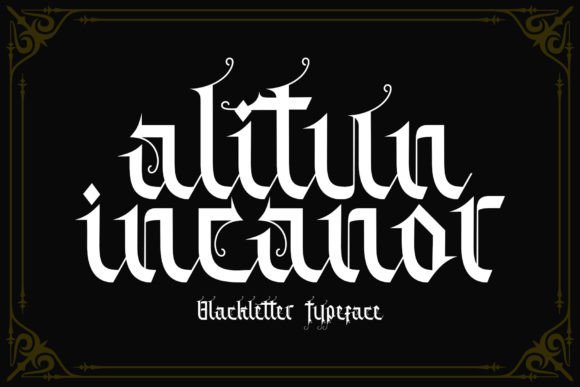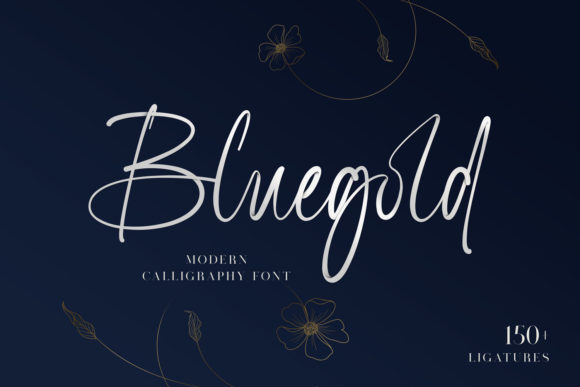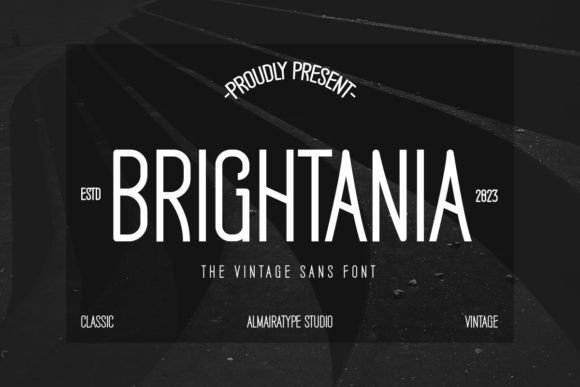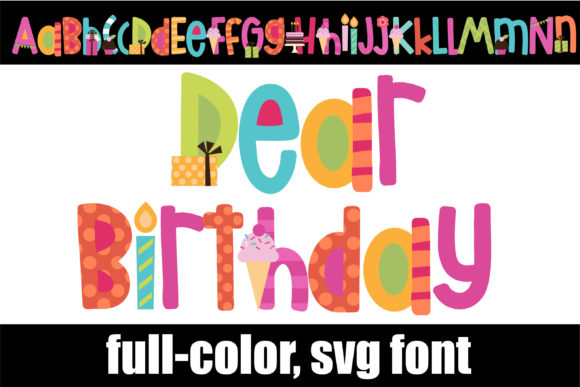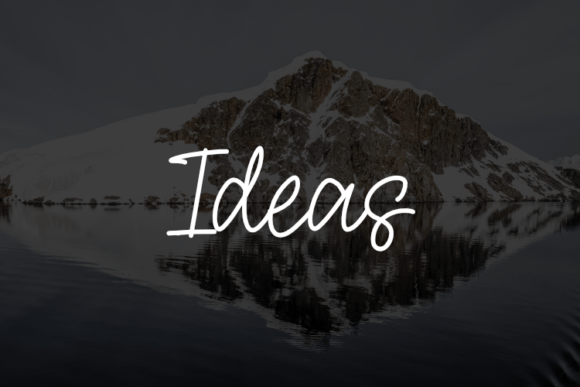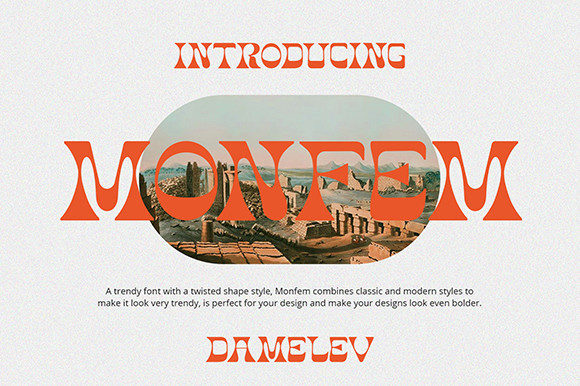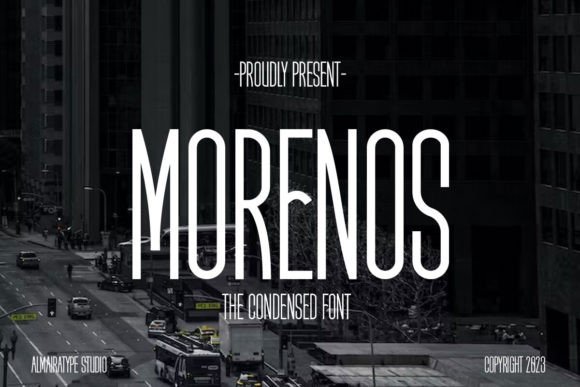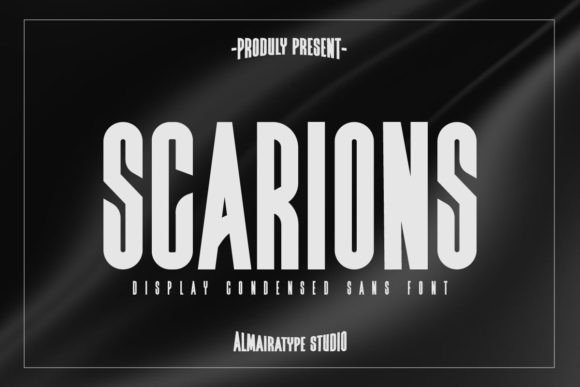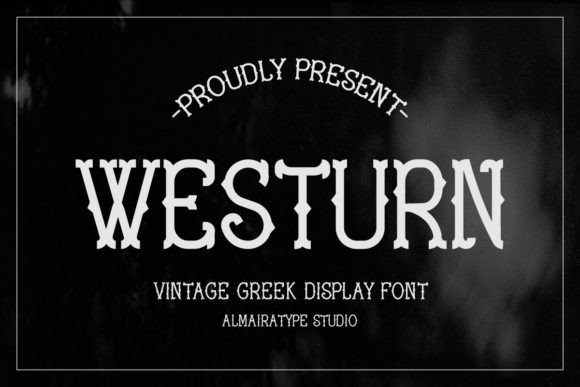
Font ideas
12+ Best font ideas: top interesting fonts for standout designs
Let’s kick things off with a true creative powerhouse appropriately named Ideas. As a designer, I’m constantly hunting for word fonts that offer total flexibility, and this one is an absolute dream for apparel and merch projects. It has a fluid, organic energy that makes your typography feel alive rather than static.
The best part? It comes as a fully accessible OTF file, meaning it plays nice with all your favorite design software without any technical headaches. Whether you are mocking up a custom t-shirt line or branding a new product, this font lets your creativity flow without limits.
Ideas Font
Let’s kick things off with a true creative powerhouse appropriately named Ideas. As a designer, I’m constantly hunting for word fonts that offer total flexibility, and this one is an absolute dream for apparel and merch projects. It has a fluid, organic energy that makes your typography feel alive rather than static.
Whether you are mocking up a custom t-shirt line or branding a new product, this font lets your creativity flow without limits.
Alitun Incanor Font
One standout discovery I’ve recently added to my toolkit is Alitun Incanor. This isn’t just another addition to your collection of word fonts; it’s a brilliant synthesis of traditional Gothic calligraphy and modern, sharp aesthetics.
What I love as a designer is its readability. It strips away the clutter of old-world blackletter while keeping that edgy soul. Whether you are working on a sleek logo, a book cover, or even tattoo-inspired merch, this font delivers a clean yet powerful vibe.
Its multilingual support makes it a versatile beast for any global project.
Westurn Font
Next on my radar is Westurn, a vintage slab serif that packs a serious punch. If you’re tired of generic word fonts, this Greek-inspired gem is a total game-changer for tactile projects. It’s got that rugged, heritage feel that works perfectly for everything from Cricut crafts and vinyl decals to festive Halloween and Christmas designs.
The bold, structured lines make it a go-to for t-shirts, mugs, or even laser-cut wood projects. It’s rare to find a font that feels both ancient and modern, but Westurn nails that vintage vibe while staying incredibly versatile for DIYers and pros alike.
Morenos Font
If you need something that screams “modern professional,” look no further than Morenos. This condensed sans serif is the epitome of cool, blending an elegant aesthetic with a sharp, space-saving structure. In the world of word fonts, finding a condensed face that doesn’t feel cramped is a win, and Morenos nails that balance perfectly.
It’s an absolute workhorse for high-impact headlines, sleek branding, and corporate layouts. Beyond the office, it translates beautifully to Cricut crafts and apparel, giving your t-shirt designs a polished, high-end finish.
Scarions Font
For those aiming for a high-end, contemporary edge, Scarions is a total standout. This cutting-edge sans-serif is a masterclass in minimalism, featuring sharp angles and clean lines that instantly elevate any layout.
While some word fonts can feel a bit generic, Scarions brings a sophisticated, architectural vibe that’s perfect for website design, high-fashion branding, or sleek editorial work. It’s incredibly versatile – it can feel tech-forward one minute and luxury-focused the next.
If your goal is a polished, modern aesthetic, this font is a top-tier choice for your kit.
Brightania Font
Next up is Brightania, a sans serif that strikes that elusive balance between vintage soul and a crisp, modern edge. In a sea of predictable word fonts, Brightania stands out because it doesn’t try too hard – it just looks effortlessly cool.
As a designer, I find it incredibly reliable for everything from high-stakes branding and business layouts to more tactile DIY projects like Cricut decals and custom apparel.
It has a rhythmic flow that works beautifully in headlines, giving your print or digital work a timeless yet fresh personality.
Cerotu Font
If you’re working on a project that needs to move fast and look bold, Cerotu is your go-to. This modern sans serif display font brings a high-energy, sporty vibe that instantly grabs attention. In a world of static word fonts, Cerotu feels dynamic and purposeful.
As a designer, I love its versatility – it’s punchy enough for athletic branding and gym apparel, yet clean enough for professional business headlines or sleek Cricut crafts.
Whether you’re designing a high-impact t-shirt or a digital banner, its bold structure ensures your message hits hard and stays memorable.
Bluegold Font
For a touch of elegance, you have to check out Bluegold. This isn’t just another script; it’s a beautifully flowing, modern font that feels incredibly organic and gentle. While some script-style word fonts can be a nightmare to work with, Bluegold is PUA encoded, which is a total lifesaver for us designers.
Whether you’re crafting high-impact business cards that people actually keep or building a web header that needs a unique, out-of-this-world touch, The Mourand feels both grounded and incredibly cool.
It’s a gorgeous choice for anyone wanting to blend classic bold vibes with a modern creative edge.
Finding the right typography is all about matching the soul of your project to the perfect letterforms. I hope these font ideas spark some serious creativity for your next design!
Experiment with these interesting fonts, mix styles, and don’t be afraid to go bold.